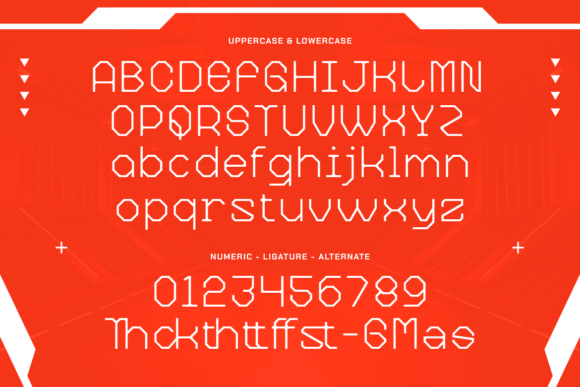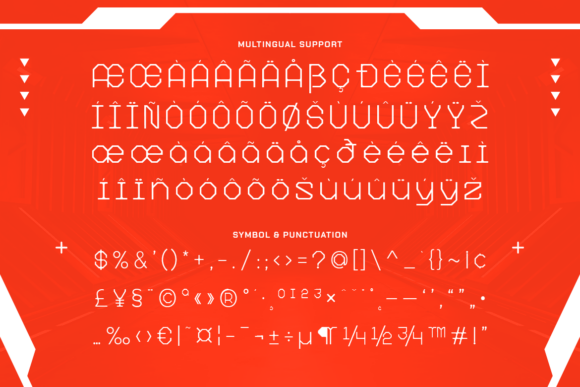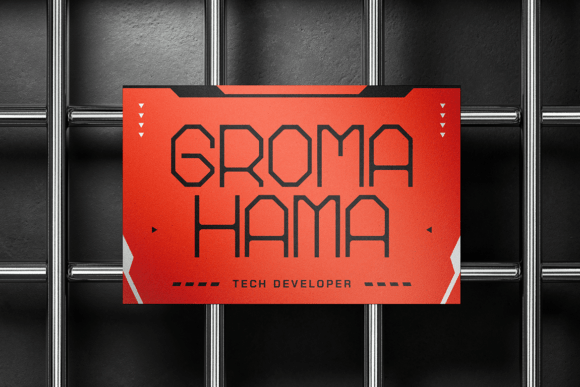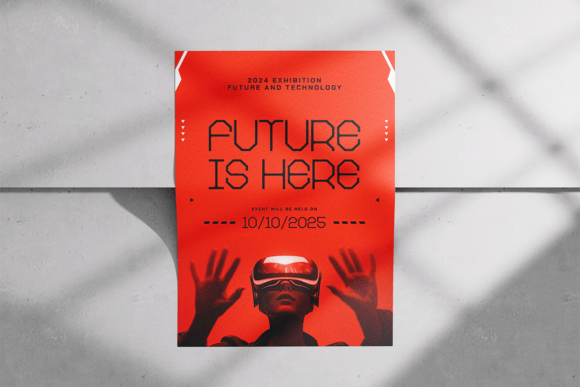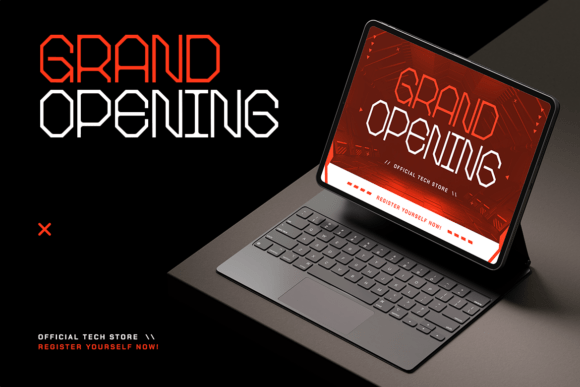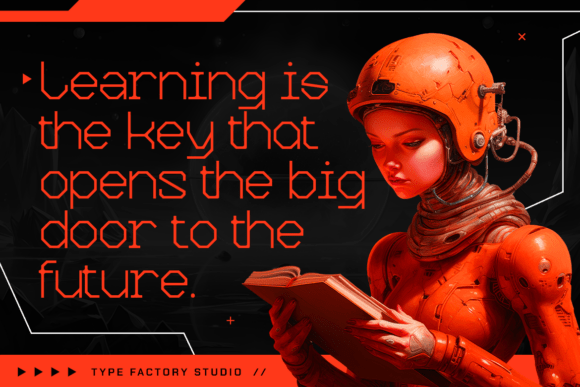
Introduction to Raffle Mono Font
Raffle Mono is a decorative monospaced typeface built with angular cuts and geometric structure.
Each character features consistent spacing with sharp corners and technical line construction, creating a bold digital appearance The squared forms and engineered detailing make it suitable for futuristic layouts, tech posters, gaming graphics, event branding, UI headlines, and experimental typography.
Key Features of Raffle Mono Font